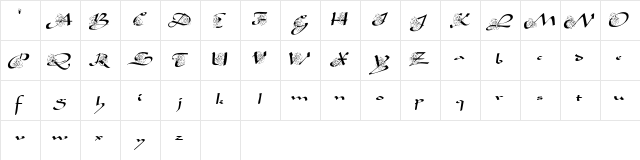
AL Princess Jasmine Regular Font Preview
AL Princess Jasmine Regular
AL Princess Jasmine Regular Font Details
Design Context for AL Princess Jasmine Typeface
AL Princess Jasmine is a composed and adaptable typeface that performs quietly and consistently across a wide range of design contexts.